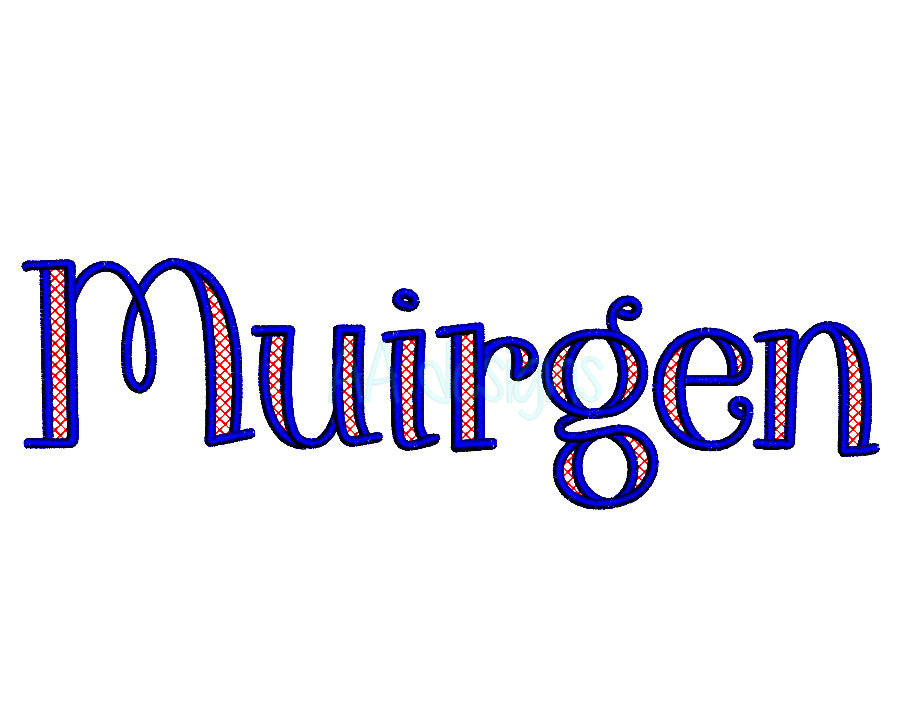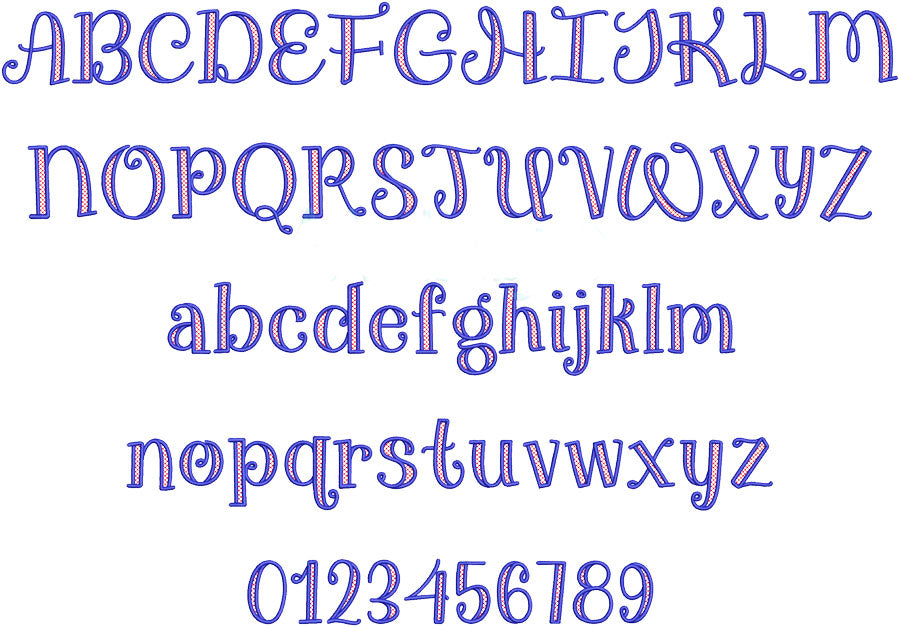
Whimsical Curly Embroidery Font | BX PES DST | Muirgen Font
Add playful charm to your machine embroidery projects with the Muirgen Whimsical Curly Embroidery Font. This decorative font features graceful curls and a lighthearted style for monograms, names, children's items, gifts, and personalized keepsakes.